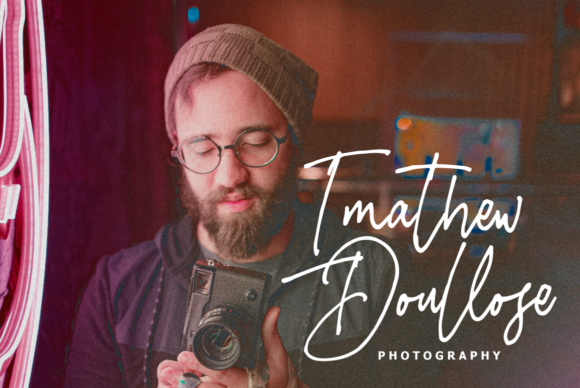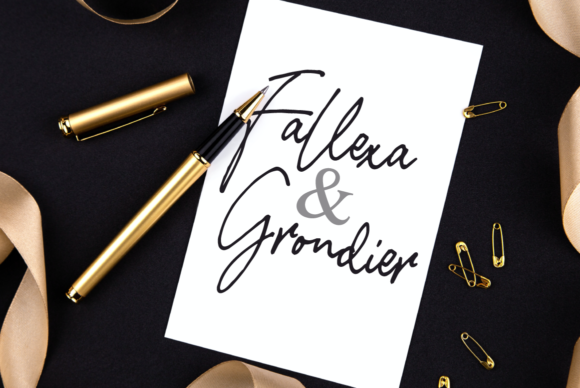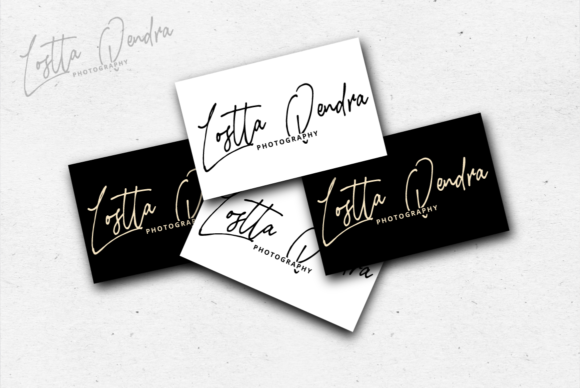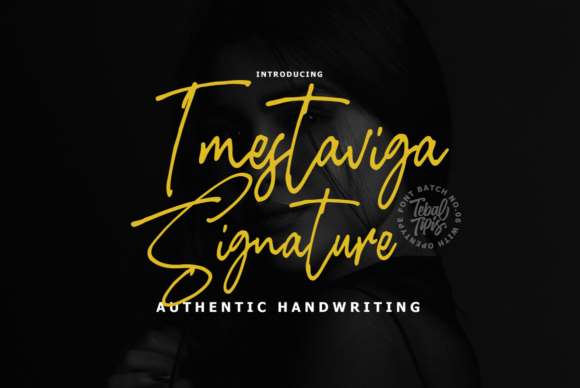
Introduction to Imestaviga Signature Font
Imestaviga Signature is a stylish and incredibly elegant script font.
Key Features of Imestaviga Signature Font
Why Choose Imestaviga Signature Font?
Imestaviga Signature Font offers exceptional quality and versatility, making it a valuable addition to your design toolkit. Whether you’re creating for personal projects or commercial use, Imestaviga Signature Font delivers professional results.